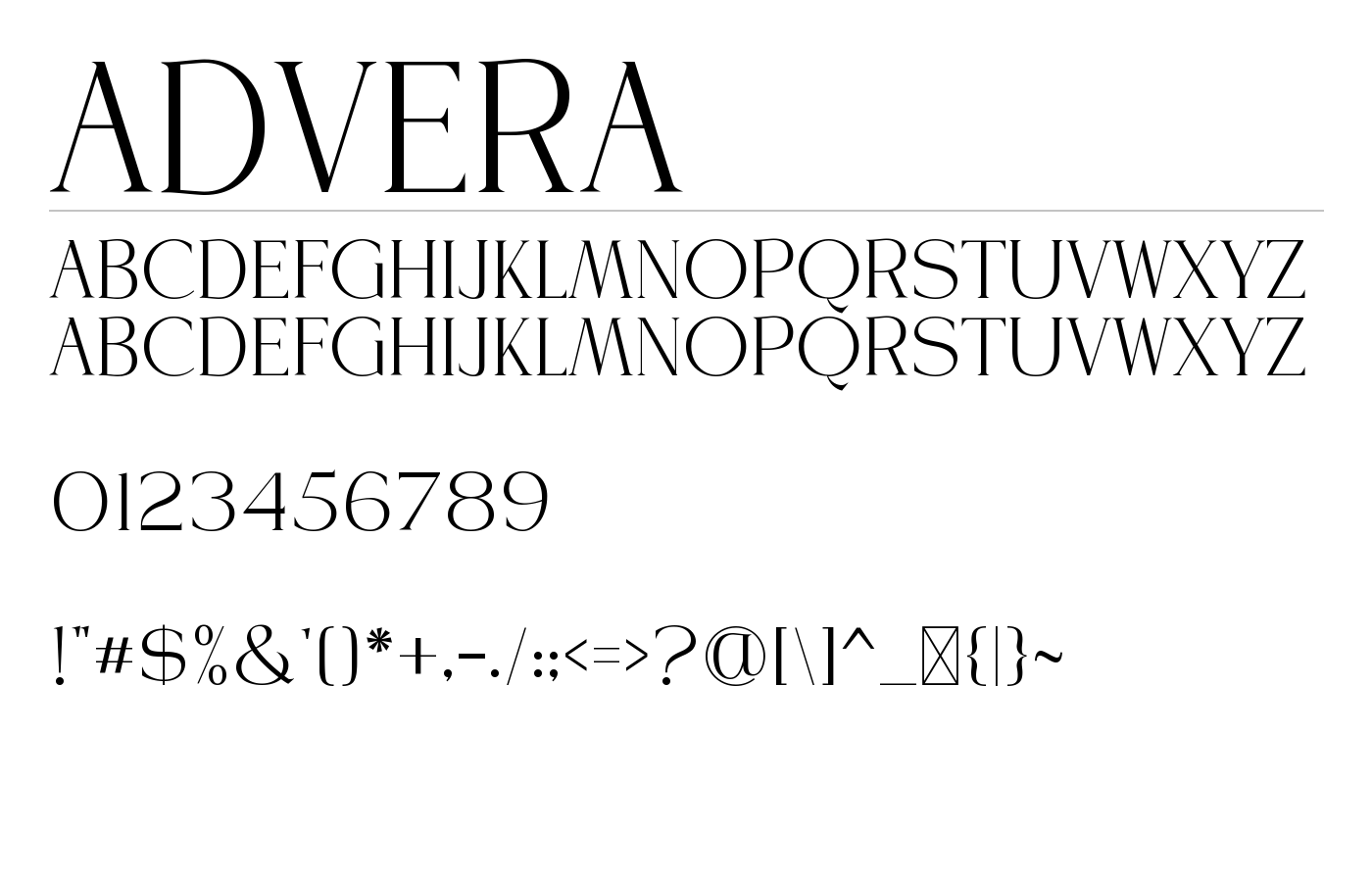
Advera is a refined serif font with a modern and elegant feel, characterized by its high contrast between thin and thick strokes and delicate, bracketed serifs. The tall, slender letterforms and unique shapes, such as the curved tail of the Q, lend it a sophisticated and luxurious personality ideal for fashion branding, editorial headlines, and upscale packaging. Its clean and graceful style makes it perfect for projects that require a touch of class and timeless beauty.
Advera Font
About Advera Font
| Font family | Advera Font |
| Designer | Fatoni Nurman |